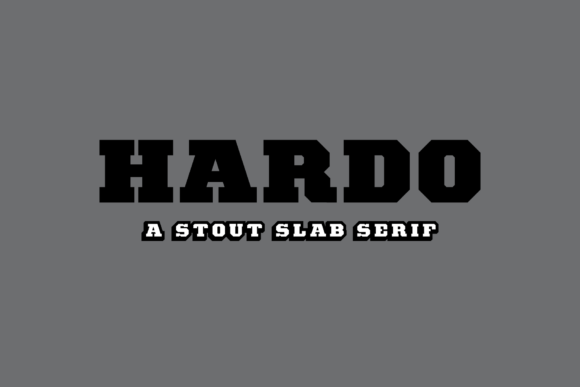
Unleash the power of Hardo, the ultimate slab serif font, crafted to conquer the world of sports typography. Bold, robust, and unapologetically strong, Hardo is the secret weapon you need in your font arsenal. It's not just a font; it's a statement of strength and individuality.
With its thick strokes and assertive presence, Hardo commands attention effortlessly. Whether you're designing posters, logos, or eye-catching headlines, Hardo effortlessly slices through the noise, leaving a lasting impression that lingers in the minds of your audience. Its versatility extends beyond sports, making it an ideal choice for branding, packaging, and even fashion.
Hardo is more than just a font; it's an extension of your creativity, a tool that empowers you to make a bold statement. Its unique aliasing display feature adds a touch of vintage charm, evoking a sense of nostalgia while maintaining a modern edge. Let Hardo be your creative ally, propelling your designs to new heights of excellence.
Don't settle for ordinary fonts. Embrace the boldness, the strength, and the undeniable allure of Hardo. Let your designs roar with confidence and make a statement that resonates with your audience. Hardo is not just a font; it's a declaration of your creative prowess. Unleash its potential and watch your designs soar to new heights.